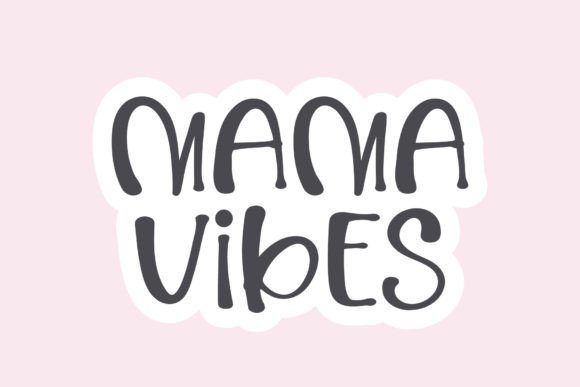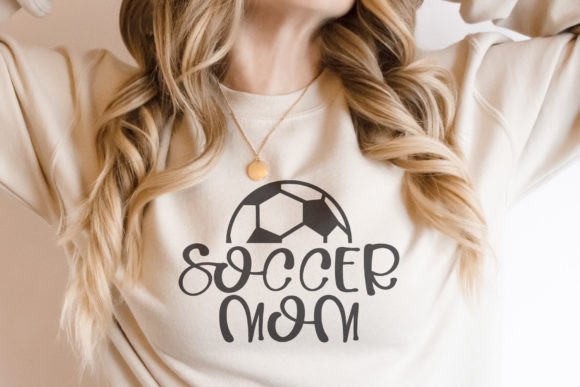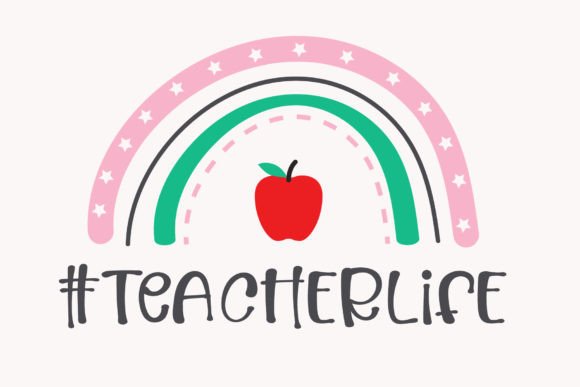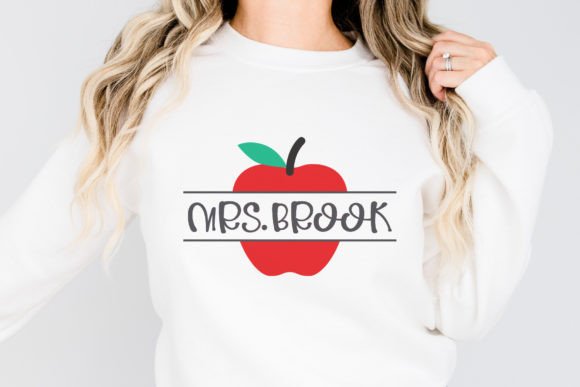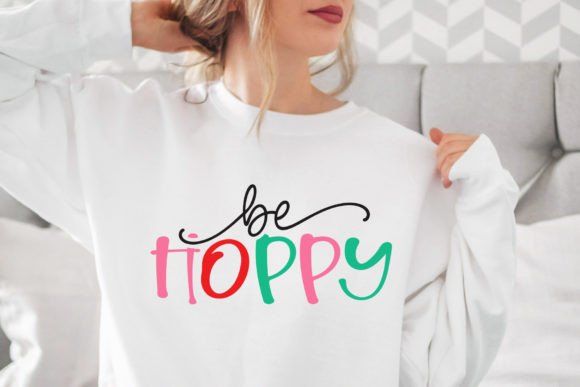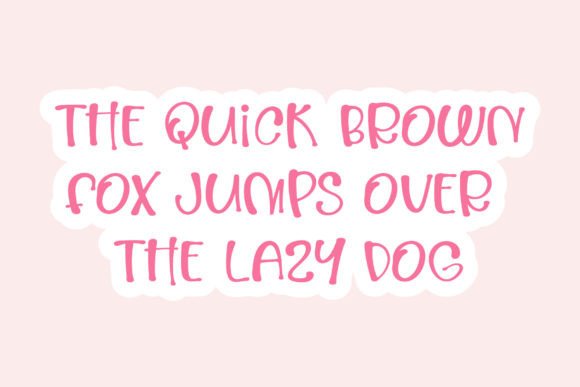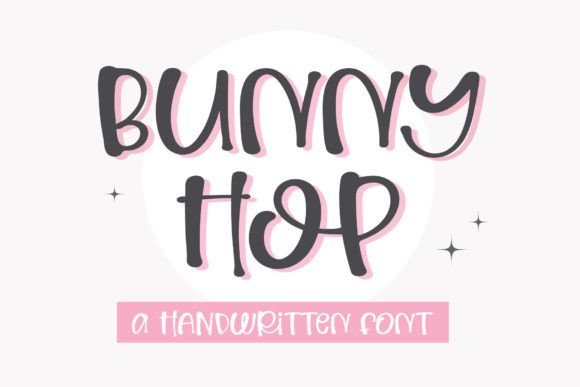
Bunny Hop Font: The Sweet and Cute Display Font for Your Creative Projects
Are you looking for a font that can add a touch of sweetness and cuteness to your designs? Look no further than the Bunny Hop Font! This versatile display font is perfect for creating fun and playful designs, from wedding invitations to social media posts. In this article, we’ll take a closer look at the Bunny Hop Font and explore its features, benefits, and uses.
What is Bunny Hop Font?
Bunny Hop Font is a sweet and cute display font that is designed to add a touch of whimsy and playfulness to your designs. Its incredibly versatile style makes it perfect for a wide range of creative projects, from fun wedding invitations to beautiful stationary art, eye-catching social media posts, and much more!
Features of Bunny Hop Font
So, what makes Bunny Hop Font so special? Here are some of its key features:
- Versatile Style: The font has an incredibly versatile style that can be used for a wide range of creative projects.
- Sweet and Cute: The font has a sweet and cute design that is perfect for creating fun and playful designs.
Benefits of Using Bunny Hop Font
So, why should you use Bunny Hop Font for your creative projects? Here are some of its benefits:
- Highly Versatile: The font can be used for a wide range of creative projects, from wedding invitations to social media posts.
- Customizable: The font is easy to customize, allowing you to create unique and personalized designs.
- Time-Saving: The font saves you time and effort, allowing you to create beautiful designs quickly and easily.
Uses of Bunny Hop Font
So, what can you use Bunny Hop Font for? Here are some ideas:
- Wedding Invitations: Create fun and playful wedding invitations that will set the tone for a sweet and romantic wedding.
- Stationary Art: Use the font to create beautiful stationary art, such as greeting cards, thank you cards, and more.
- Social Media Posts: Create eye-catching social media posts that will grab the attention of your followers.
- Party Decorations: Use the font to create fun and playful party decorations, such as banners, signs, and more.
Tips for Using Bunny Hop Font
Here are some tips for using Bunny Hop Font:
- Experiment with Different Sizes: Experiment with different font sizes to create a unique and personalized look.
- Combine with Other Fonts: Combine Bunny Hop Font with other fonts to create a unique and interesting design.
- Use Swashes and Glyphs: Use the font’s swashes and glyphs to add a touch of whimsy and playfulness to your designs.